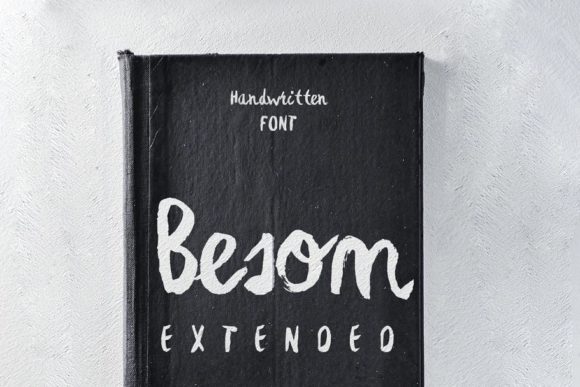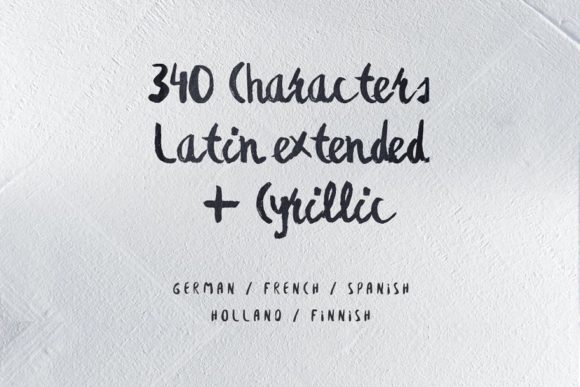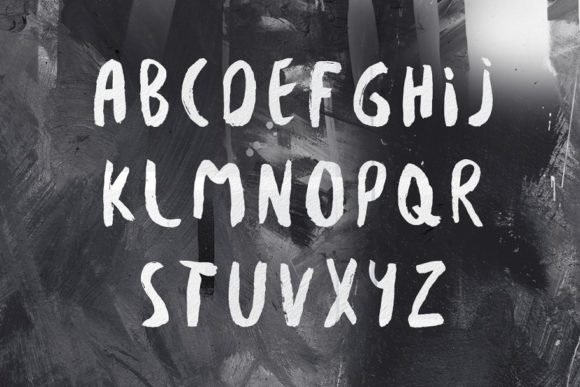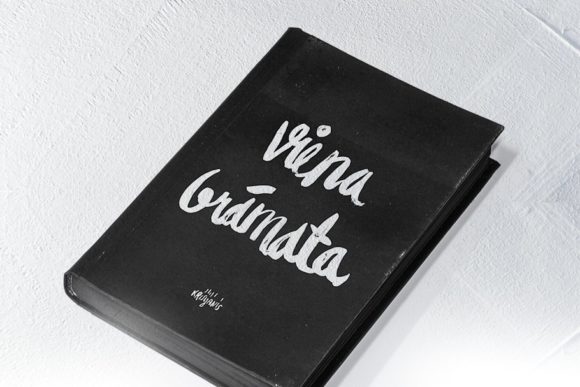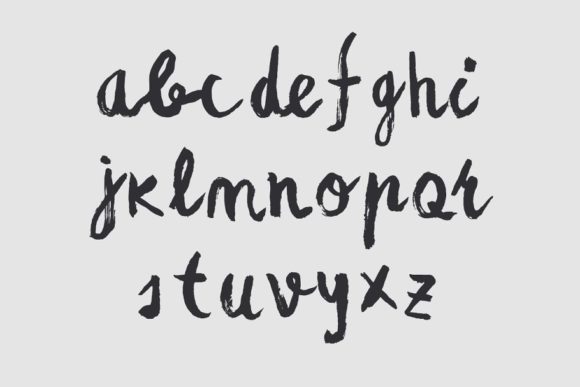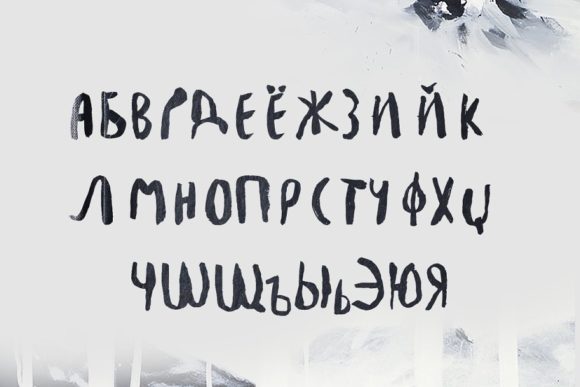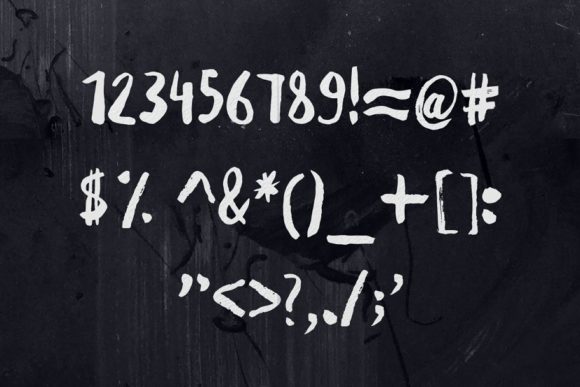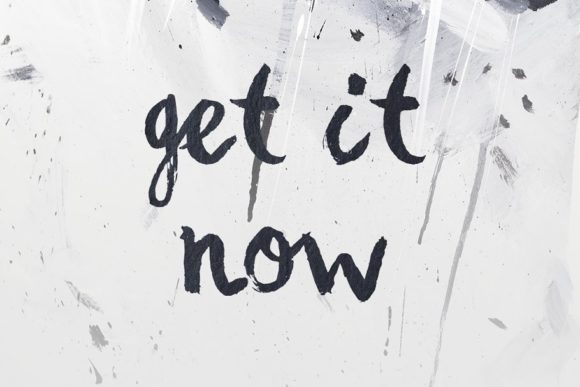
Besom Extended Font
About Besom Extended Font
Besom extended is a casual, fun handwritten font, created by using a brush pen. Clean and a little bit quirky, this font is the perfect fit for all of your logos, branding, social media, and crafty DIY projects.